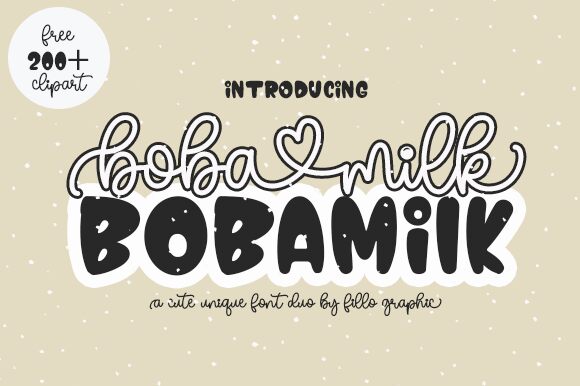
Bobamilk Bold Bold
Bobamilk Bold font is a rounded bold display typeface designed by Fillo Graphic. Its smooth cartoon characters have a friendly modern influence while maintaining a warm aesthetic. The letters flow casually with an overall energetic look, which captures the attention of anyone who comes across it.
The free Bobamilk Bold font serves many purposes that require some extra attention and fun feel. Use it to design game interfaces, make video animations, write book titles, and create colorful posters. Several branding products may end up relevant again when labeled using the integrated set of letters and numbers inside this amazing font file.